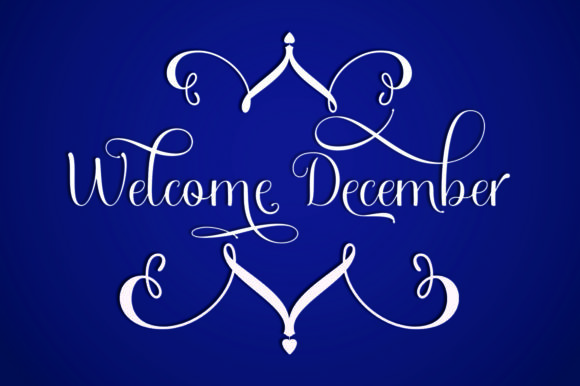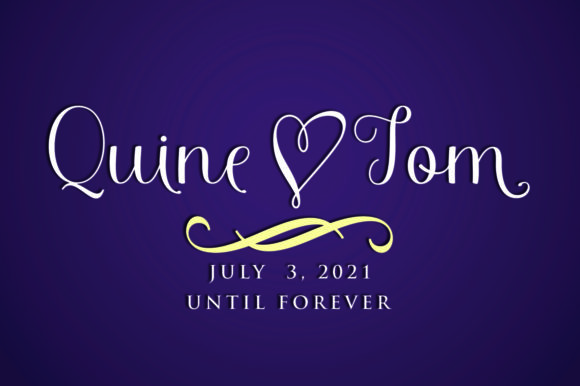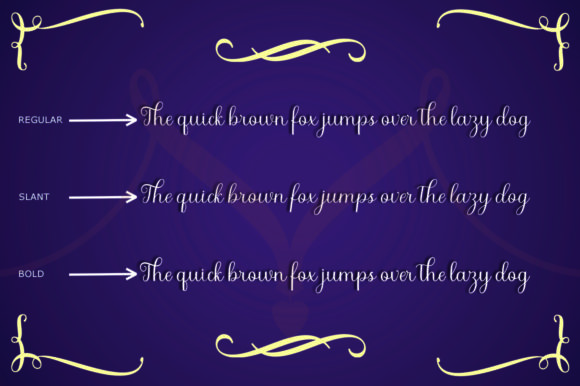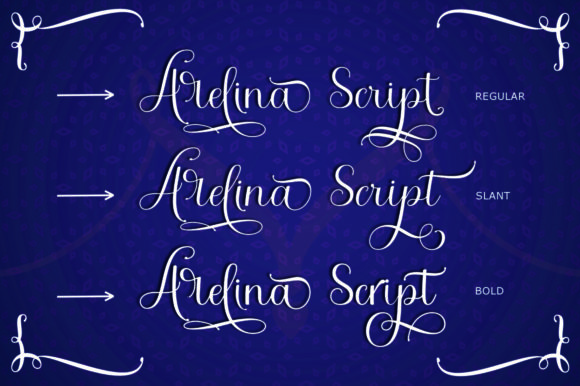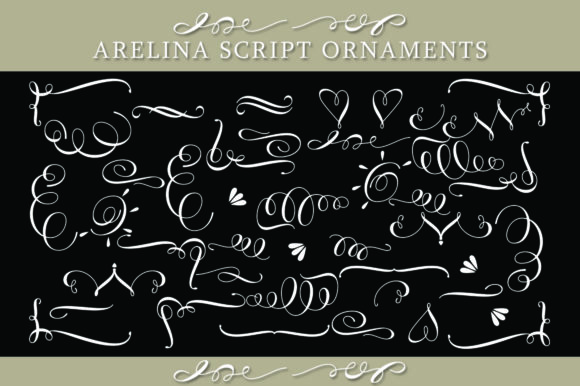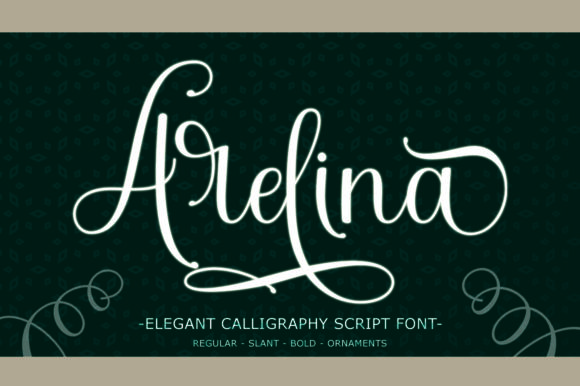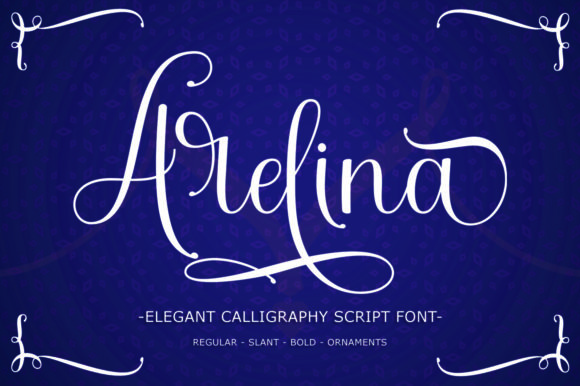
Arelina Font: Elevate Your Designs with Elegance and Sophistication
In the world of typography, a font can make or break a design. For designers and crafters seeking to add a touch of elegance and sophistication to their projects, the Arelina font is an excellent choice. This delicate, elegant, and flowing handwritten font is designed to impress, with beautiful and well-balanced characters that match a wide pool of designs.
What Makes Arelina Font Special?
Arelina font stands out from the crowd due to its unique characteristics. Its delicate and flowing script is perfect for creating beautiful text-based designs, from wedding invitations and greeting cards to branding and packaging. The font’s elegant appearance is sure to captivate your audience, making your designs more engaging and memorable.
Key Features of Arelina Font
- Delicate and Elegant Design: Arelina font boasts a beautiful, flowing script that adds a touch of sophistication to any design.
- Well-Balanced Characters: The font’s characters are carefully crafted to ensure balance and harmony, making it easy to read and visually appealing.
- PUA Encoded: Arelina font is PUA (Private Use Area) encoded, which means you can access all the glyphs and swashes with ease. This feature allows for greater flexibility and creativity in your designs.
- Wide Range of Design Applications: Arelina font is versatile and can be used in various design projects, including wedding invitations, greeting cards, branding, packaging, and more.
Arelina font offers numerous benefits for designers and crafters, including:
- Time-Saving: With Arelina font, you can create stunning designs quickly and efficiently, thanks to its well-balanced characters and PUA encoding.
- Increased Creativity: The font’s elegant design and range of glyphs and swashes allow you to experiment with different design ideas and push the boundaries of your creativity.
- Professional Results: Arelina font is designed to produce professional-looking results, making it perfect for designers and crafters who want to deliver high-quality designs.
How to Use Arelina Font in Your Designs
Using Arelina font in your designs is straightforward. Here are some tips to get you started:
- Pair with Other Fonts: Experiment with pairing Arelina font with other fonts to create a unique and visually appealing design.
- Adjust Font Size and Style: Play around with different font sizes and styles to add emphasis and create visual hierarchy in your design.
- Use Glyphs and Swashes: Take advantage of Arelina font’s PUA encoding to access a range of glyphs and swashes, adding a personal touch to your designs.
In conclusion, Arelina font is an excellent choice for designers and crafters seeking to add a touch of elegance and sophistication to their designs. With its delicate and flowing script, well-balanced characters, and PUA encoding, this font is sure to elevate your designs and make them more engaging and memorable. Whether you’re creating wedding invitations, greeting cards, or branding and packaging, Arelina font is a versatile and reliable choice.
Get Creative with Arelina Font